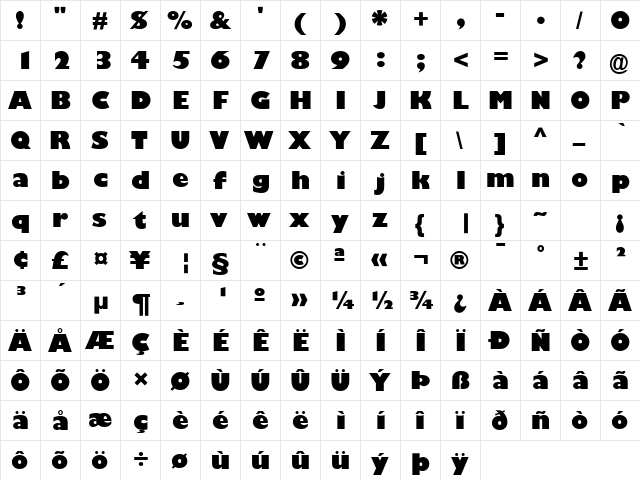
Garrison Kayo Regular
Design Context for Garrison Kayo Typeface
Garrison Kayo is a composed and adaptable typeface that performs quietly and consistently across a wide range of design contexts.
Pro Tip: Use Garrison Kayo in both headline and body roles to test its range before committing to a single application.